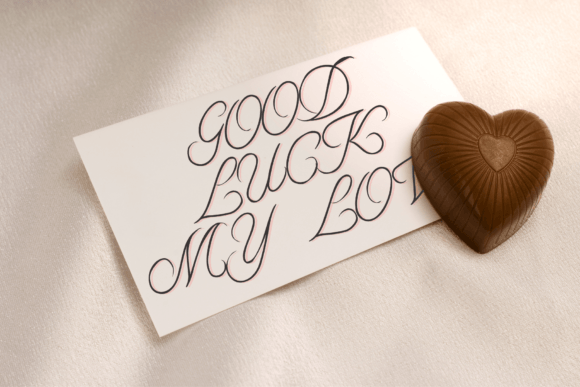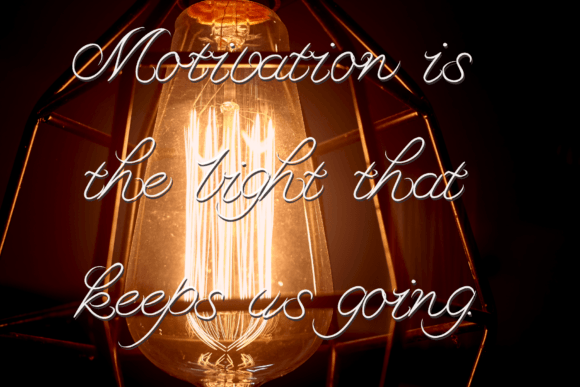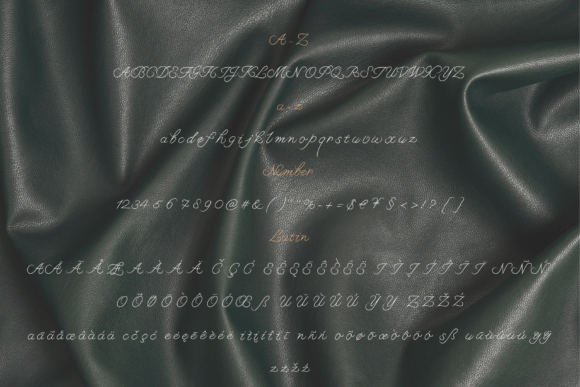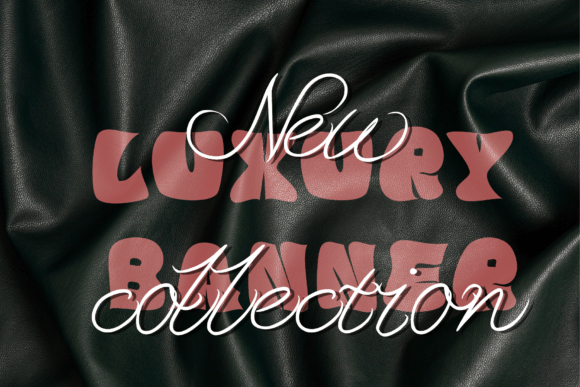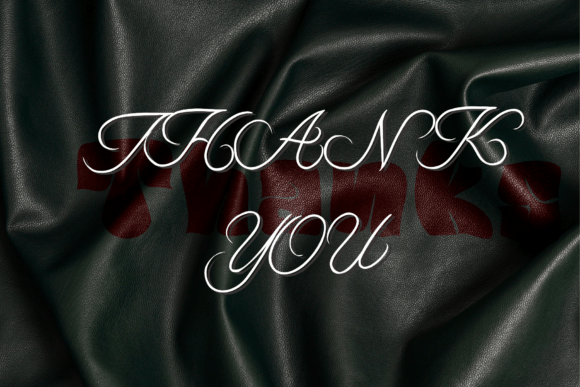
Introduction to Goodly Font
Goodly is a flowing handwritten font, described by an elegant touch, perfect for your favorite projects.
Key Features of Goodly Font
Why Choose Goodly Font?
Goodly Font offers exceptional quality and versatility, making it a valuable addition to your design toolkit. Whether you’re creating for personal projects or commercial use, Goodly Font delivers professional results.